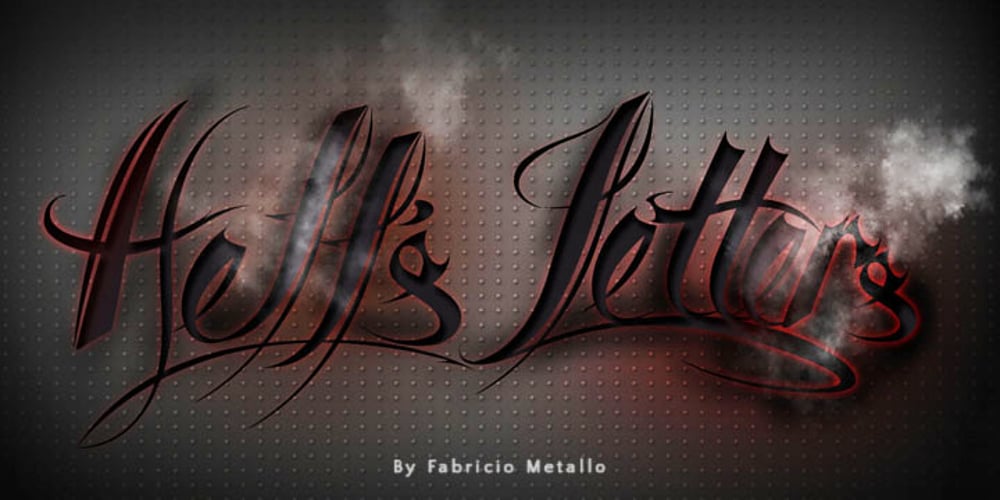
Hell’s Letters Font Family was designed by Fabricio Metallo and published by FM Fonts. Hell’s Letters contains 1 styles and family package options. Basically my inspiration to create this font was located in the designs of old-school tattoo associated with wildlife Rockabilly and 70’s and 80’s. This font is perfectly applicable to typesetting for headlines, posters and art designs.